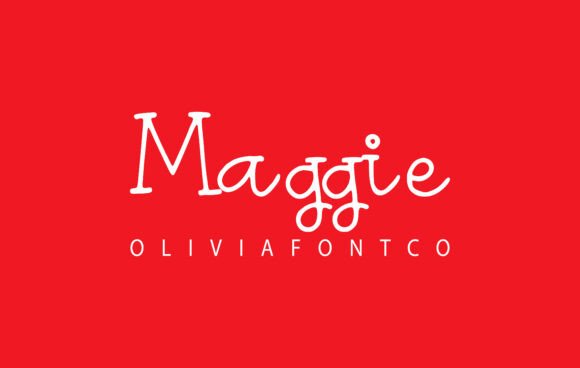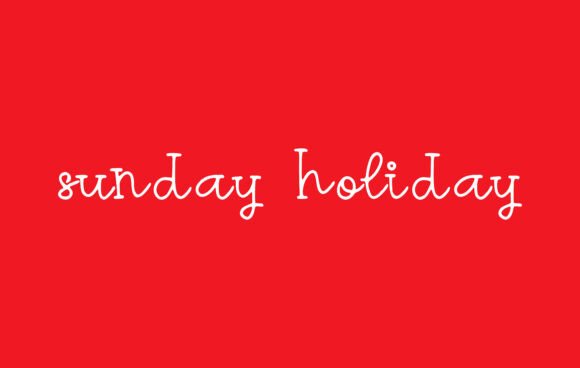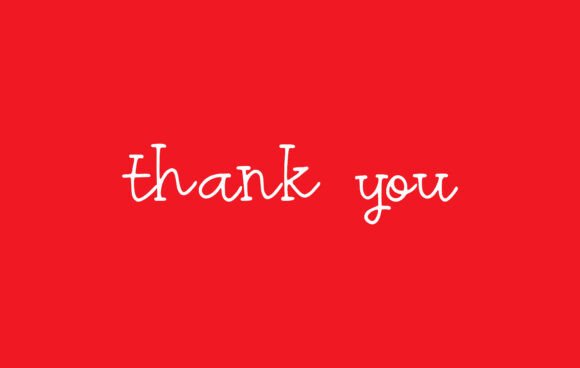
Maggie Font: A Cute Handwritten Font for Wedding & Social Media Designs
About the Maggie Font
Get ready to be inspired by Maggie Font, a fresh and dynamic typeface for modern creators. Maggie font is an authentic handwritten font with a romantic touch. Expertly designed to be a true favorite, this font has the potential to take your creative ideas to the highest level
Maggie’s romantic touch makes it ideal for projects needing a touch of elegance and warmth, such as wedding invitations, branding for boutiques, or feminine product packaging. Headlines and short text blocks benefit most from its charming character; however, its handwritten nature makes it less suitable for body text or UI elements where high legibility over long passages is crucial.
Pairing Maggie with a clean sans-serif like Lato or Open Sans provides a sophisticated contrast, grounding its whimsicality. For a more playful feel, consider pairing it with a fun, slightly quirky script font. Avoid pairing it with overly ornate or heavily embellished fonts, which could clash with its delicate handwritten quality.
Its core personality is best described as romantic and approachable, conveying a sense of both elegance and friendly warmth. Projects that benefit from this balance of sophistication and approachability will find Maggie a perfect fit.
Maggie Font Usage Examples
Maggie Font Example